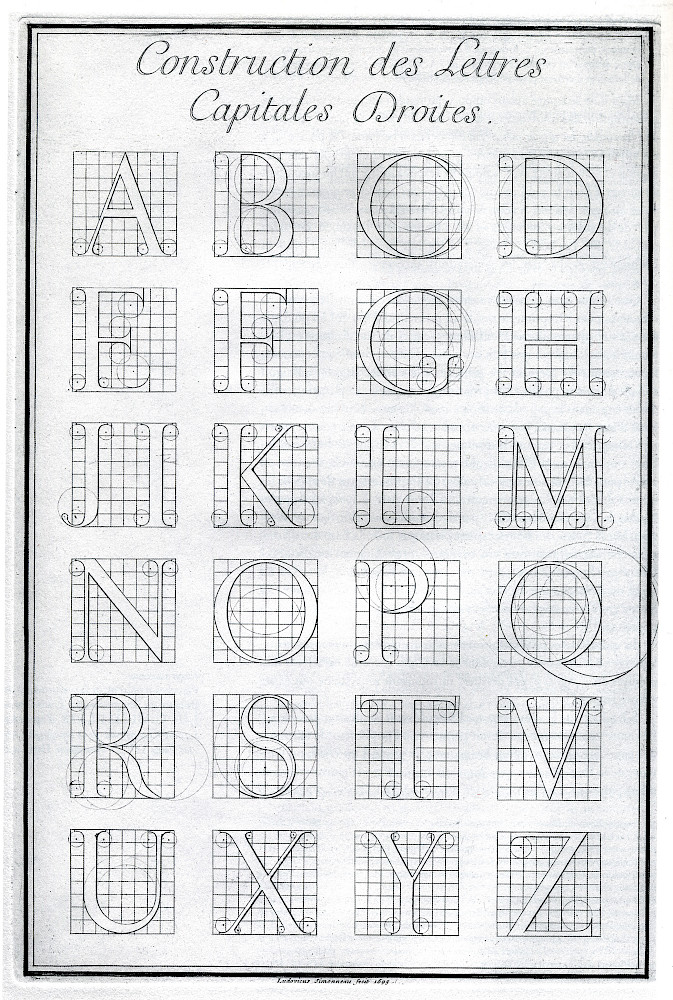
The Romain du Roi was a typeface developed in France beginning in 1692. The name refers to Louis XIV who commissioned the design of the new typeface for use by the Royal Print Office. Whereas previous roman typefaces developed naturally over time, evolving in the hands of punch cutters from the typefaces of the fifteenth century, the Romain du Roi was the result of rational design: the letterforms were mapped on grids before being cut into metal.